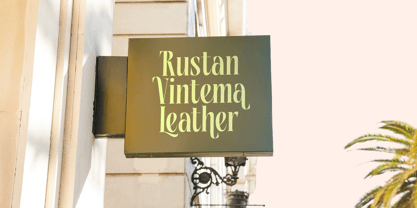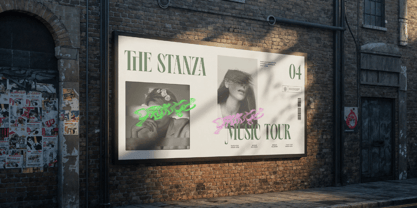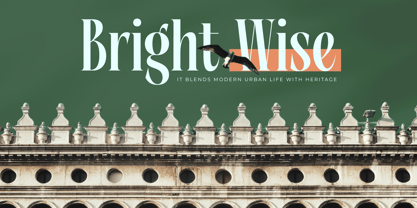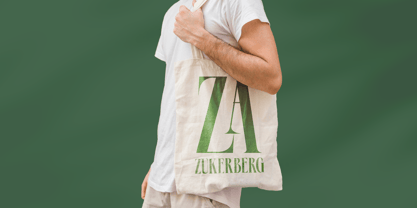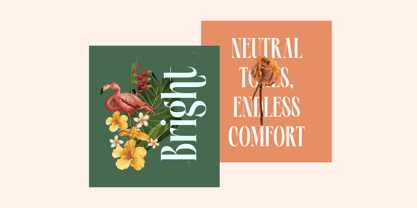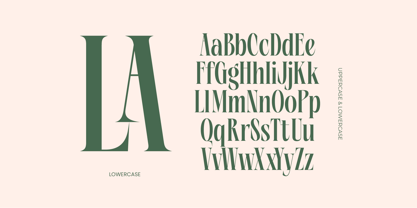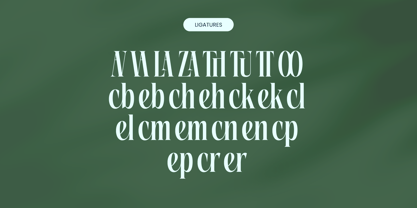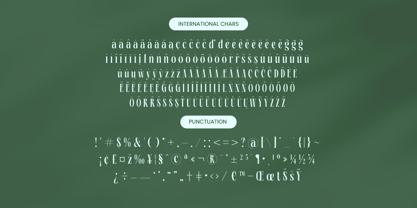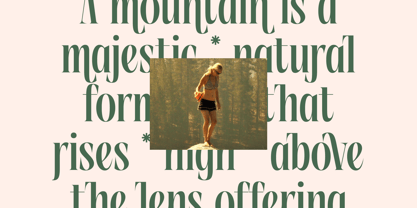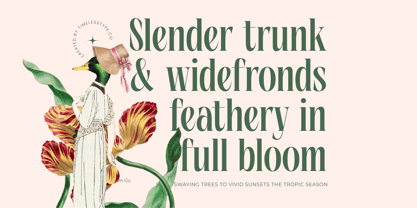
Repslag Brocker
The Repslag Brocker Font Family was designed by Heru Utama Putra and published by Timelesstype Studio. Repslag Brocker contains 2 styles and family package options.
Repslag Brocker - Modern Display Serif Font , from Timelesstype , Suitable for any projects such as: logos, branding projects, homeware designs, product packaging, mugs, quotes, posters, shopping bags, t-shirts, book covers, name card, invitation cards, greeting cards, label, photography, watermark, special events, and all your other luxury and beautiful projects that need a Luxury Serif taste.